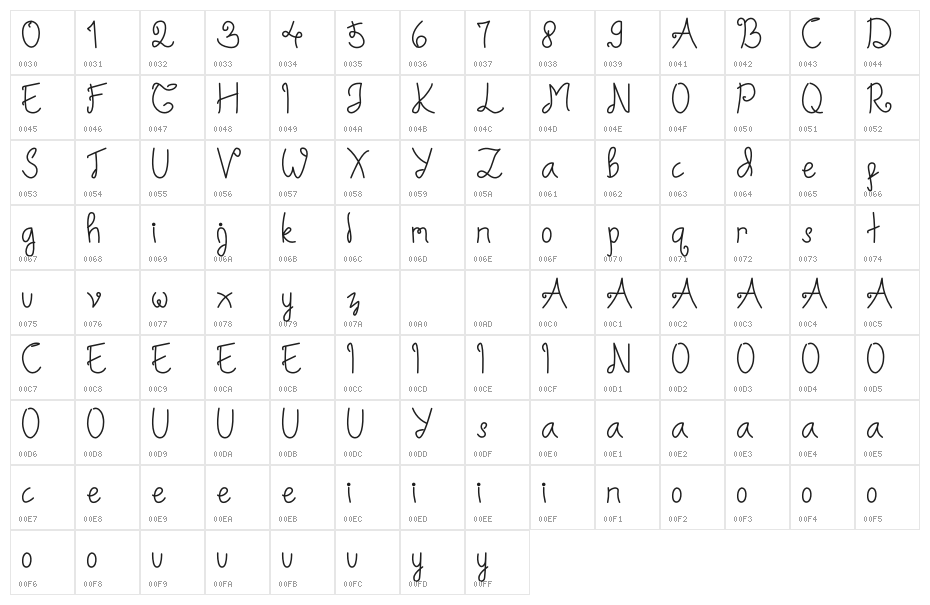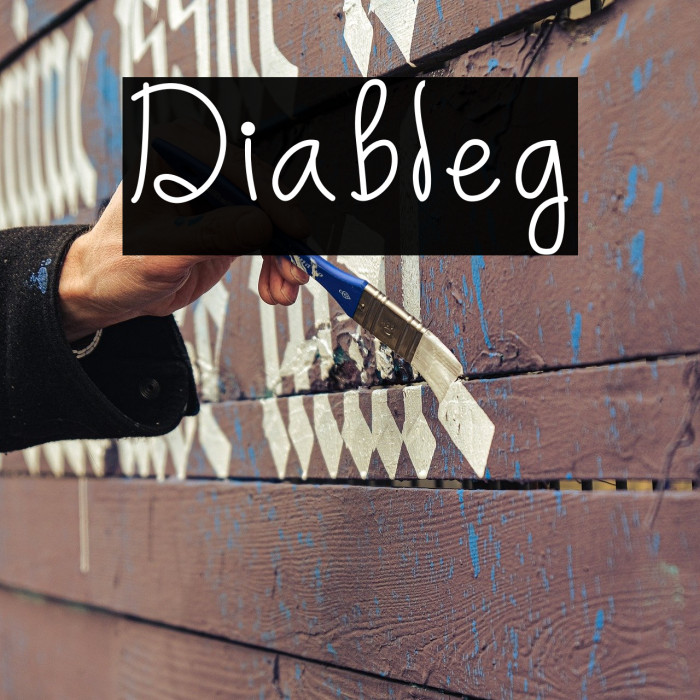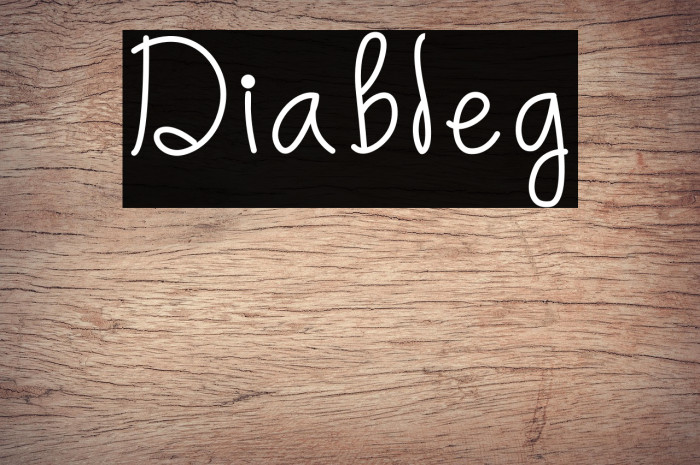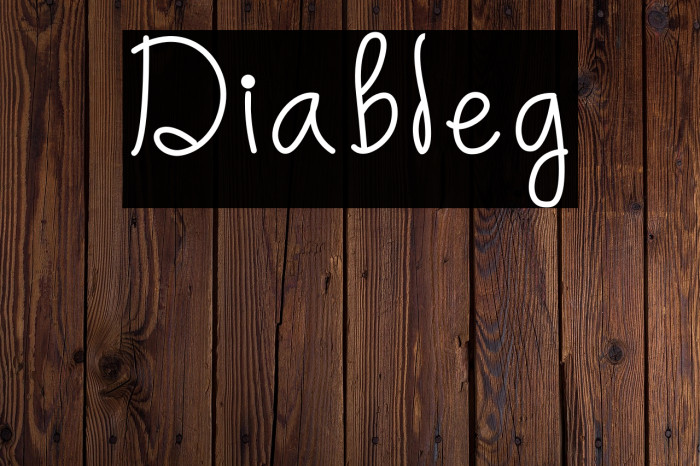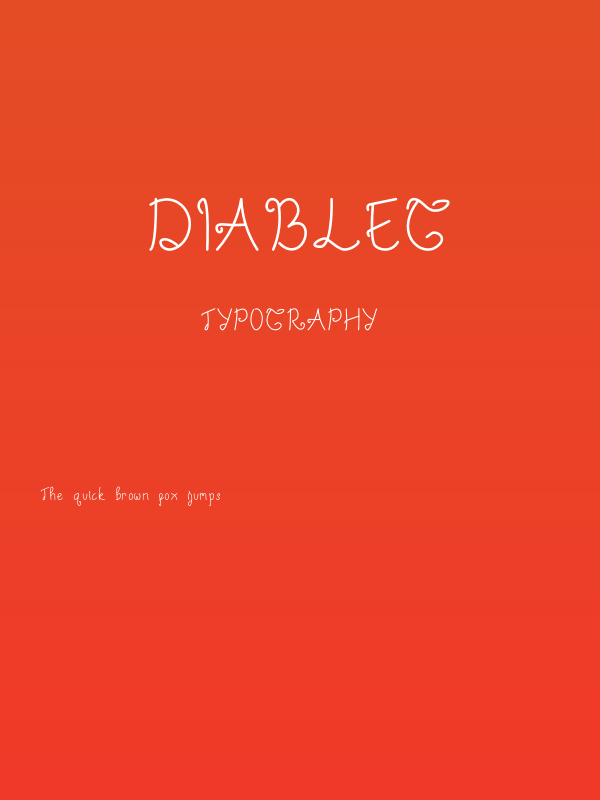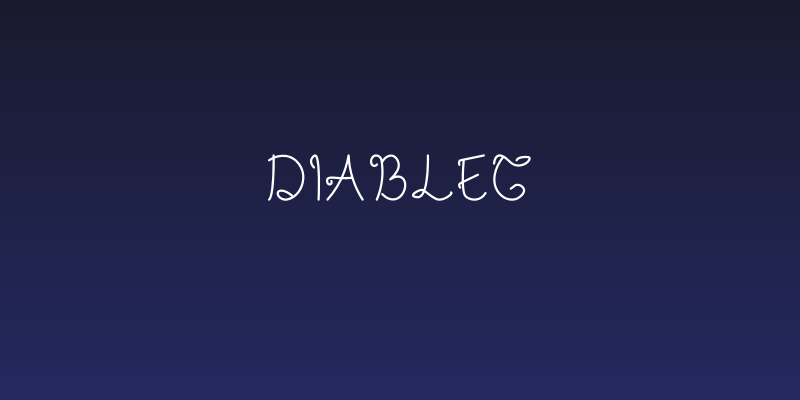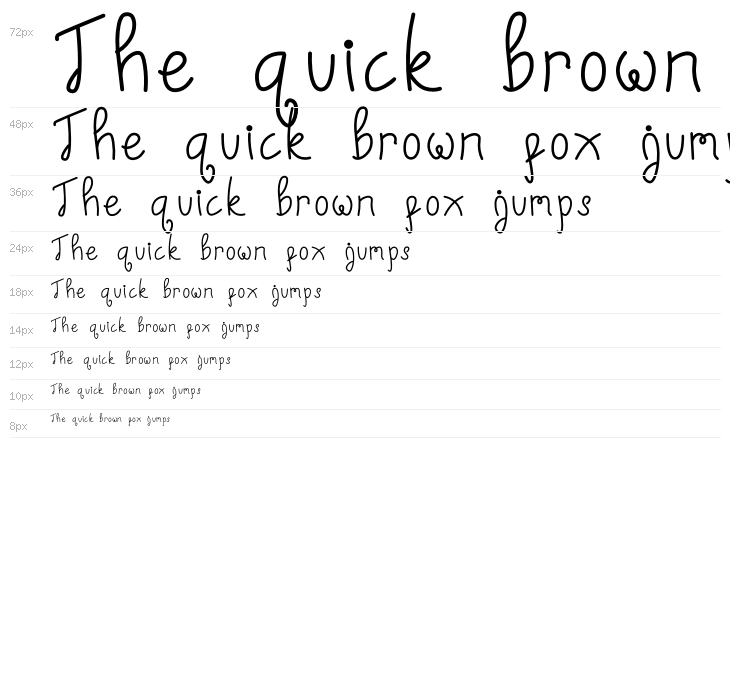
Diableg Font
Diableg Description
This font features a whimsical and playful design with a handwritten style. The letters are characterized by their flowing, cursive-like strokes, giving them a lively and dynamic appearance. The uppercase letters maintain a consistent height, while the lowercase letters exhibit a charming irregularity, adding to the font's casual and friendly feel. The numbers are equally playful, with unique curves and loops that match the overall aesthetic. Special characters are creatively integrated, maintaining the font's cohesive look. This font is ideal for projects that require a touch of personality and creativity.